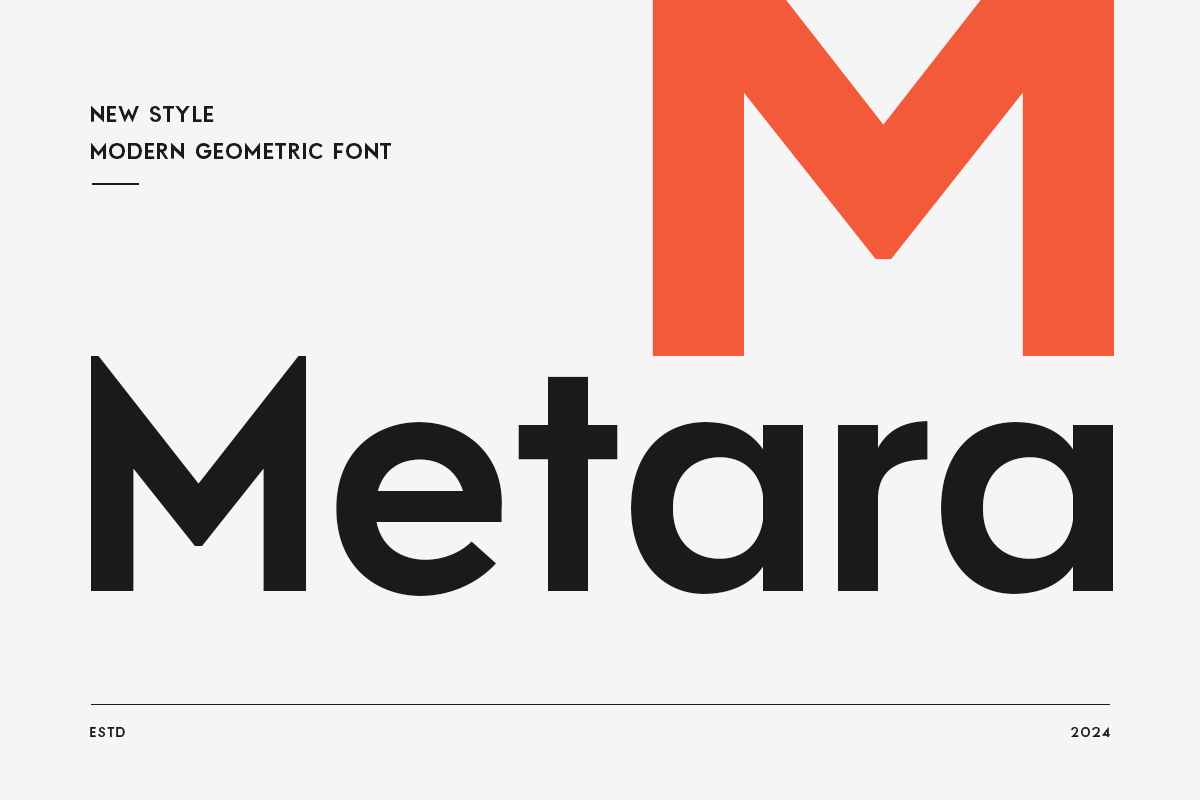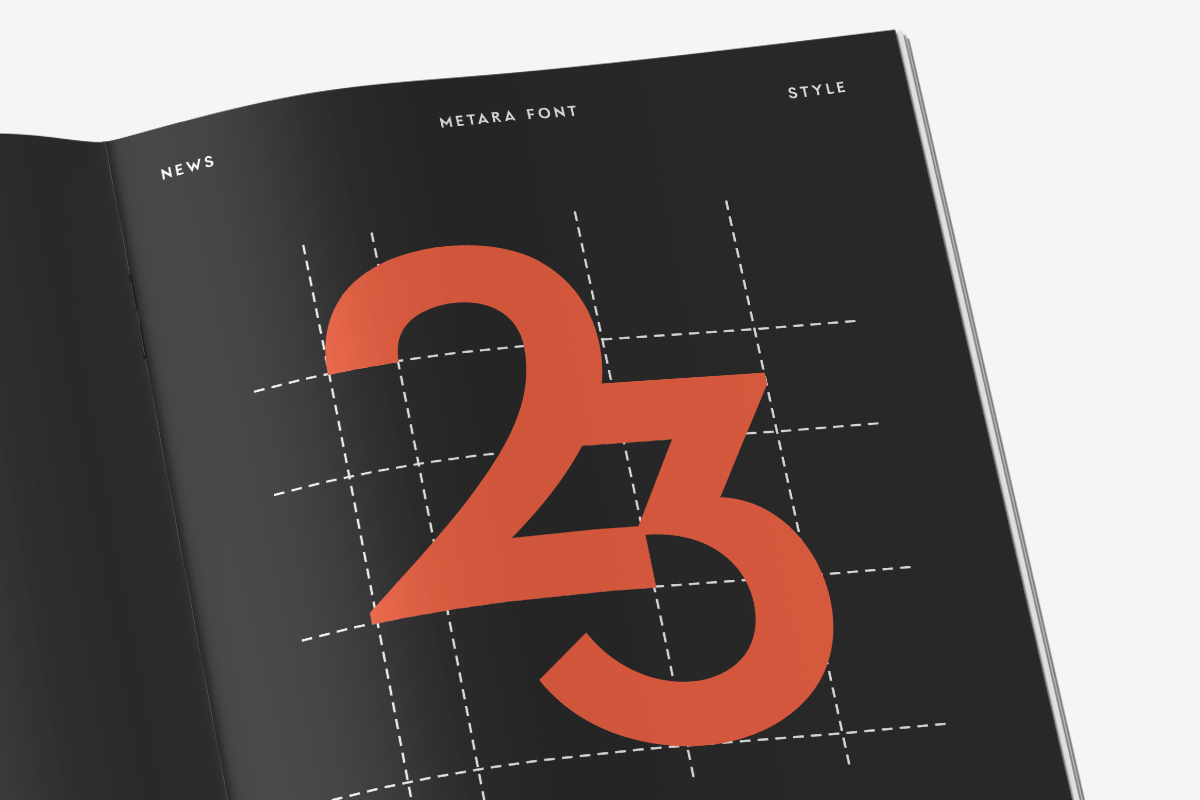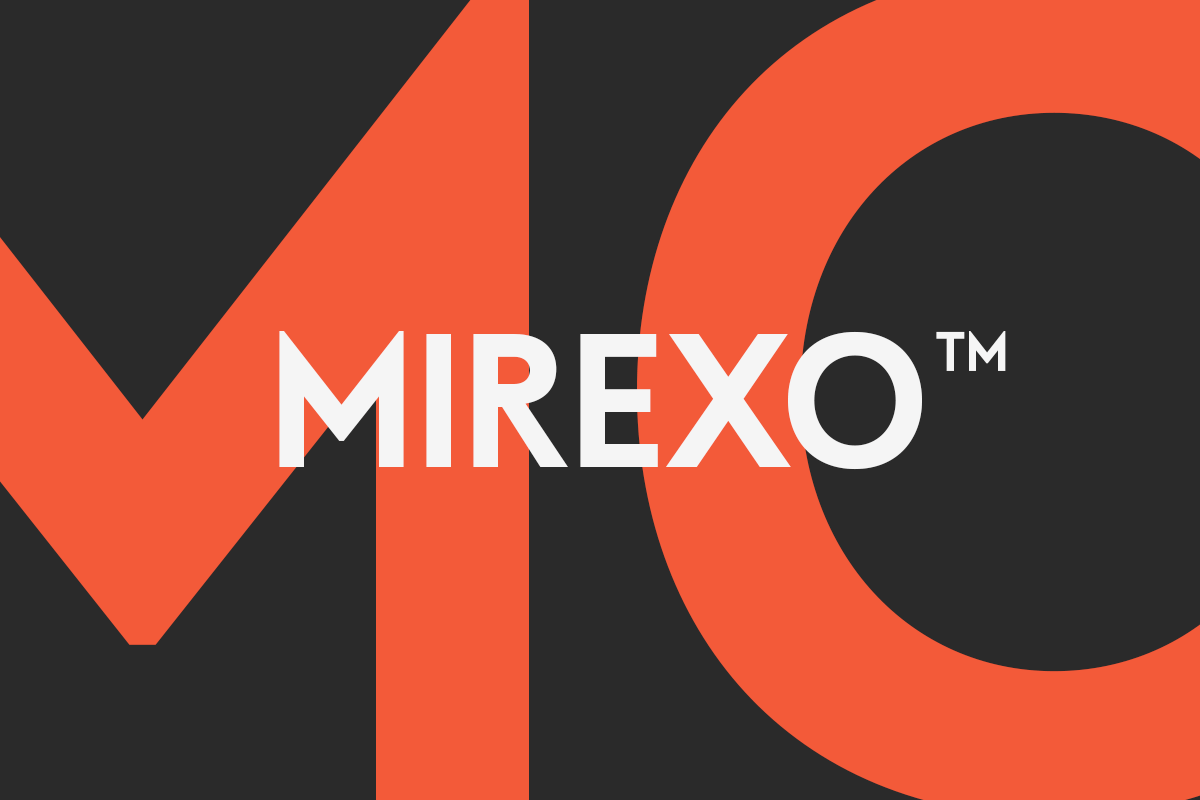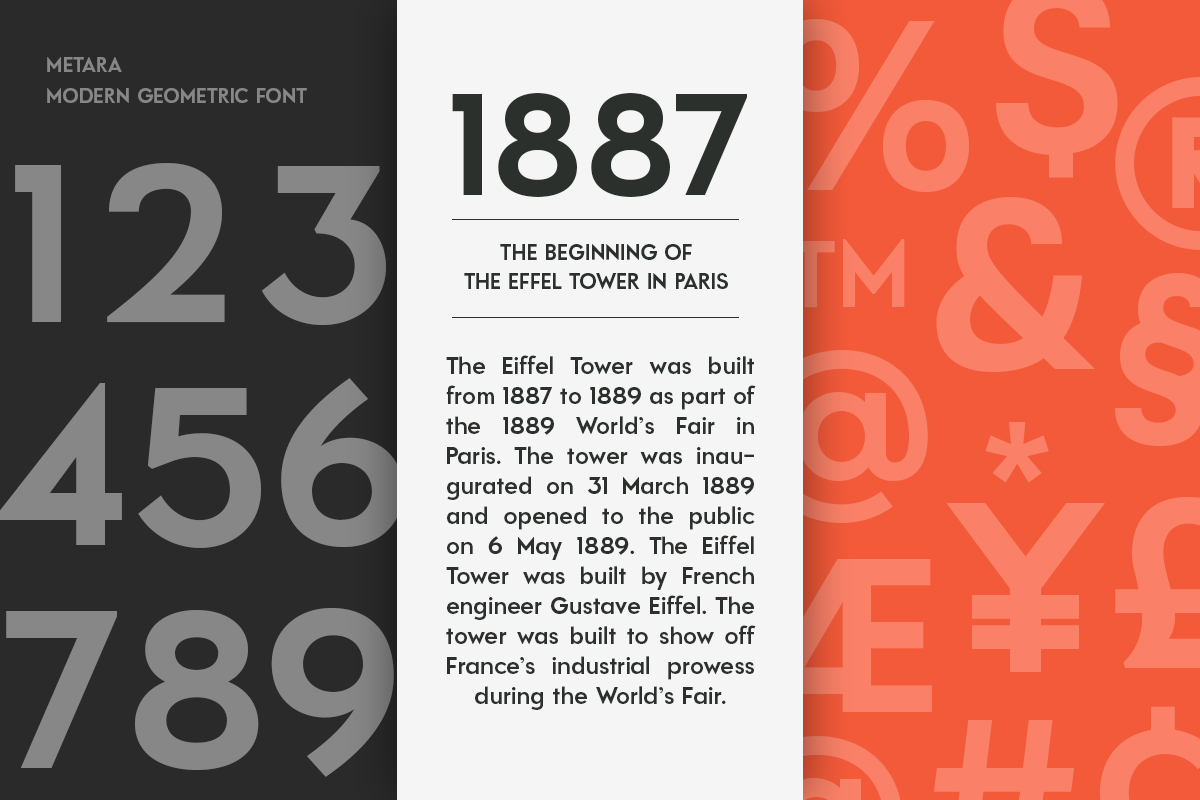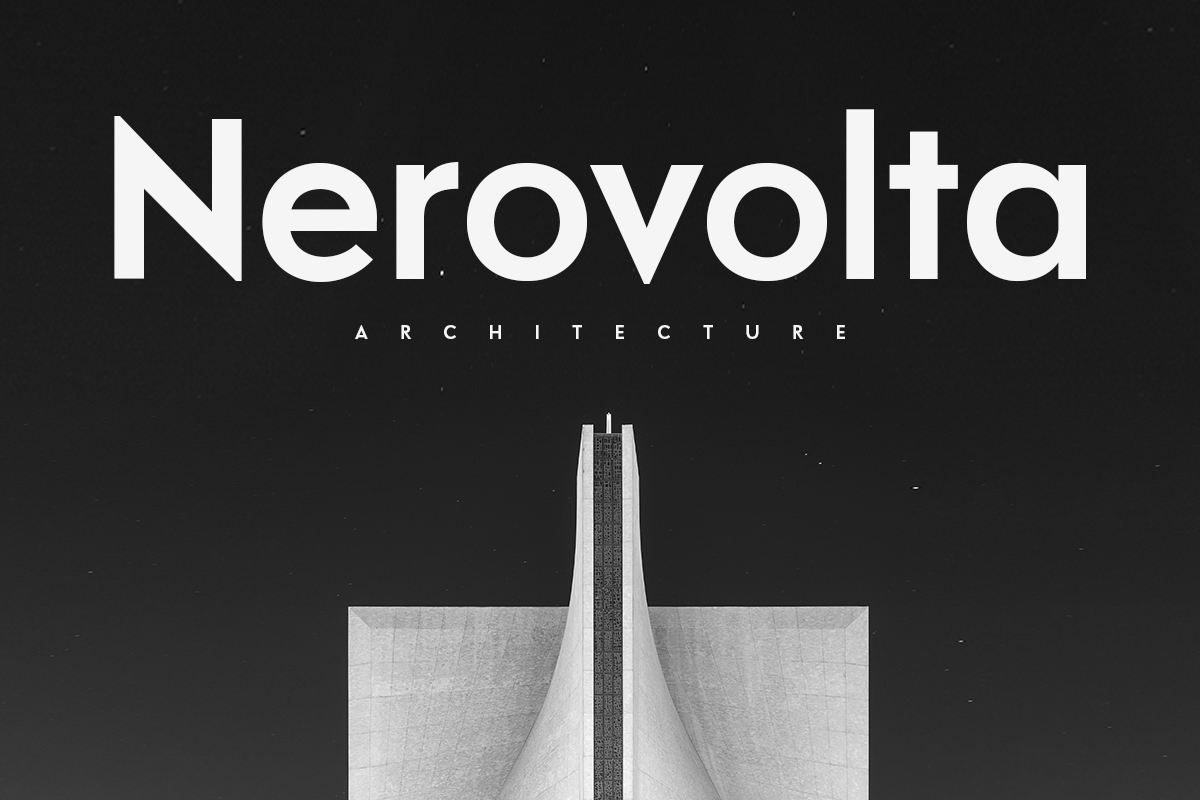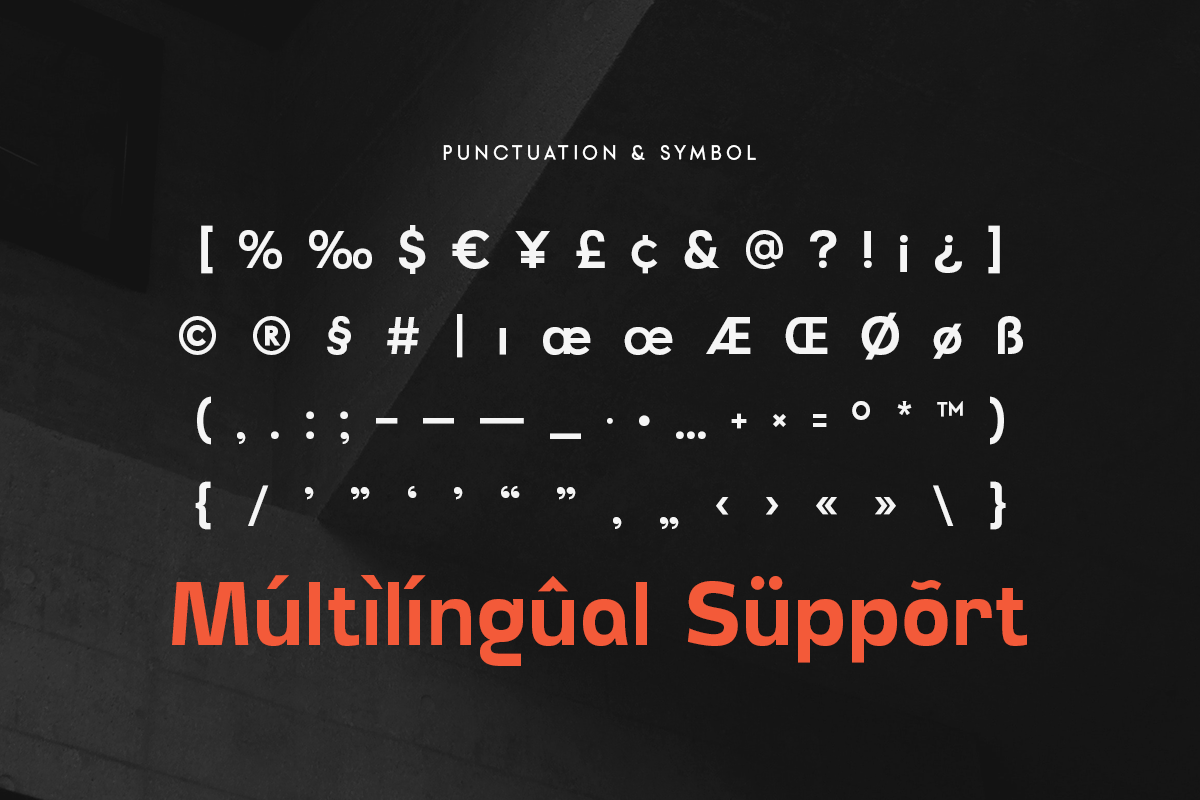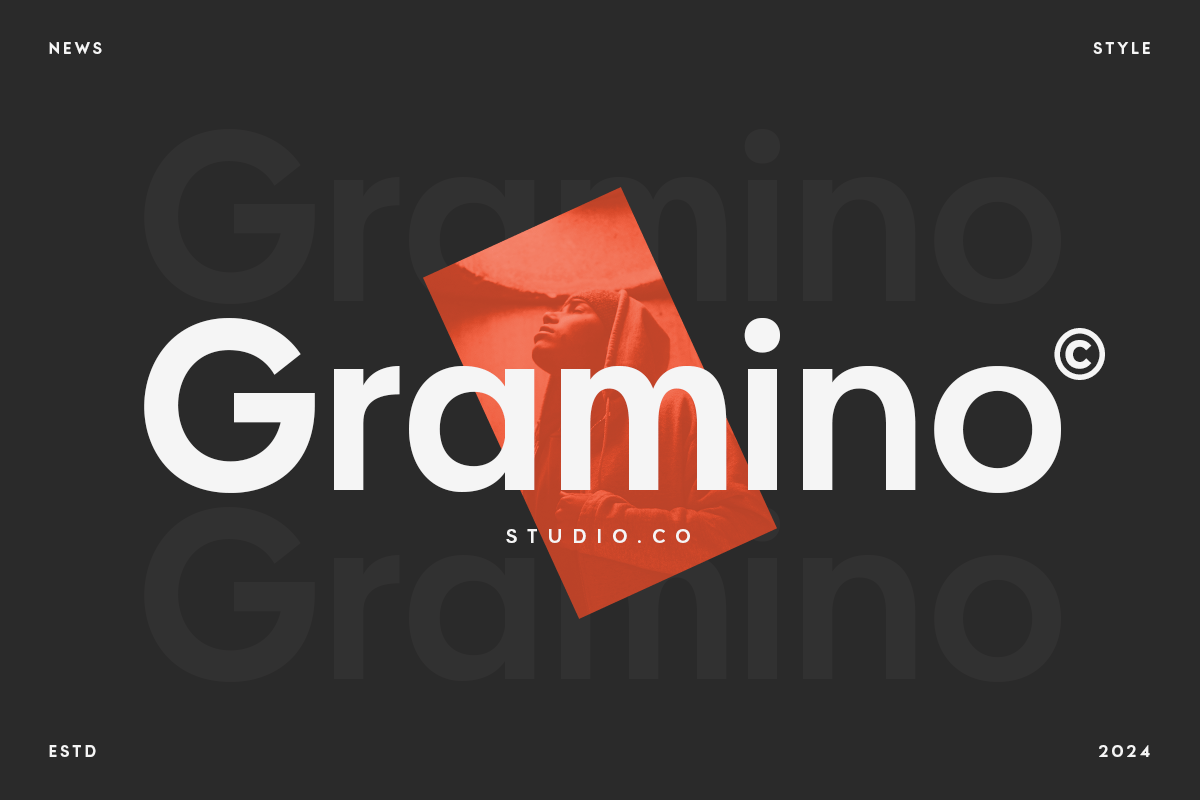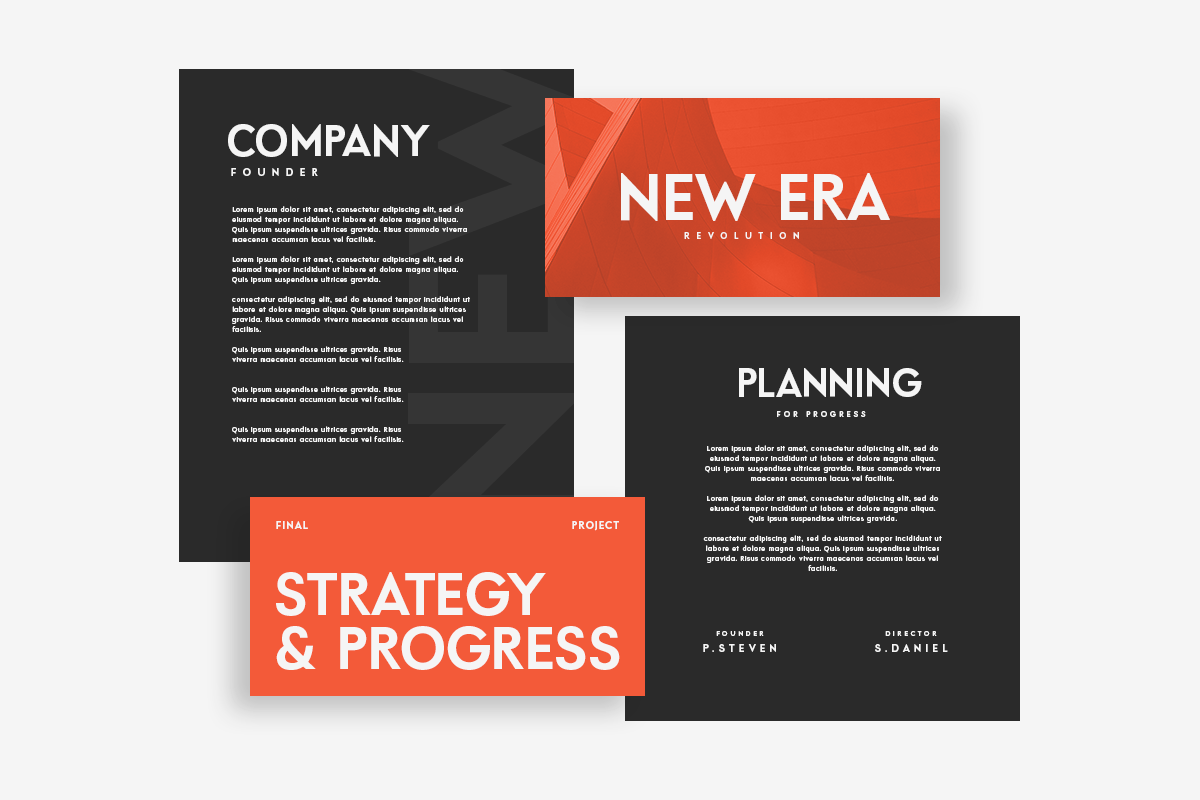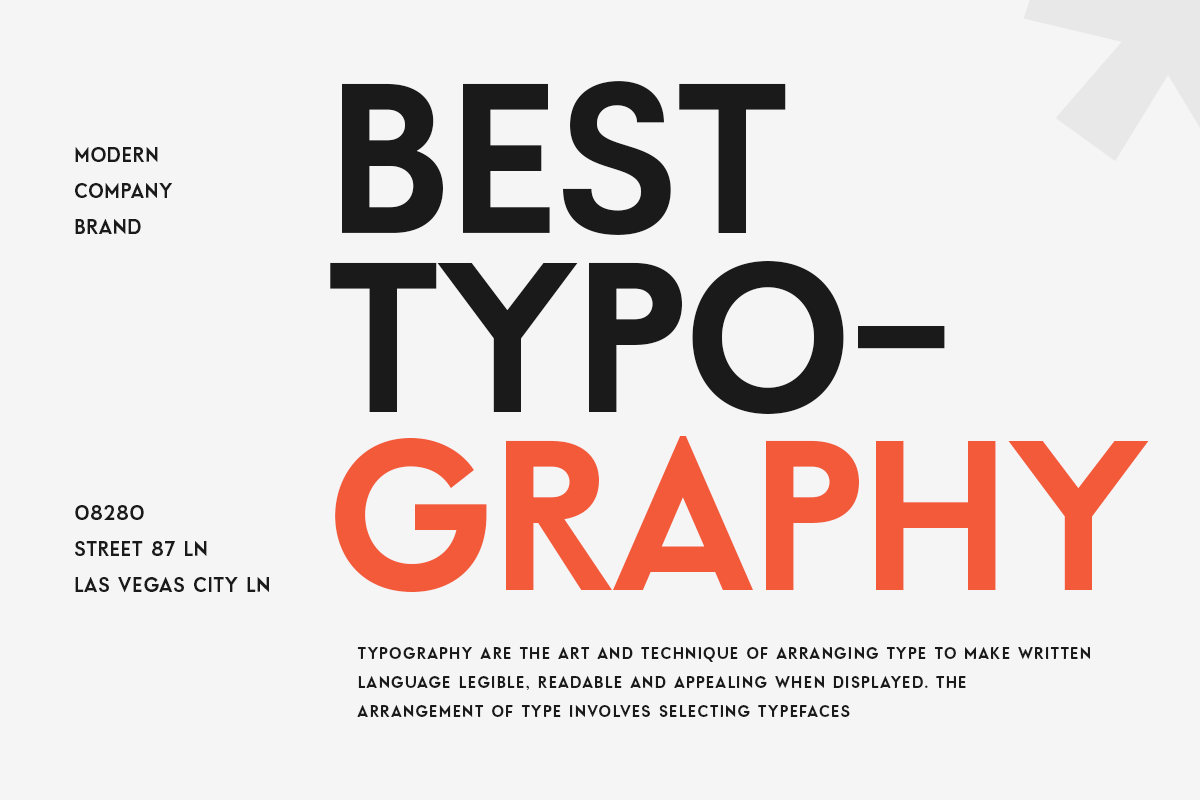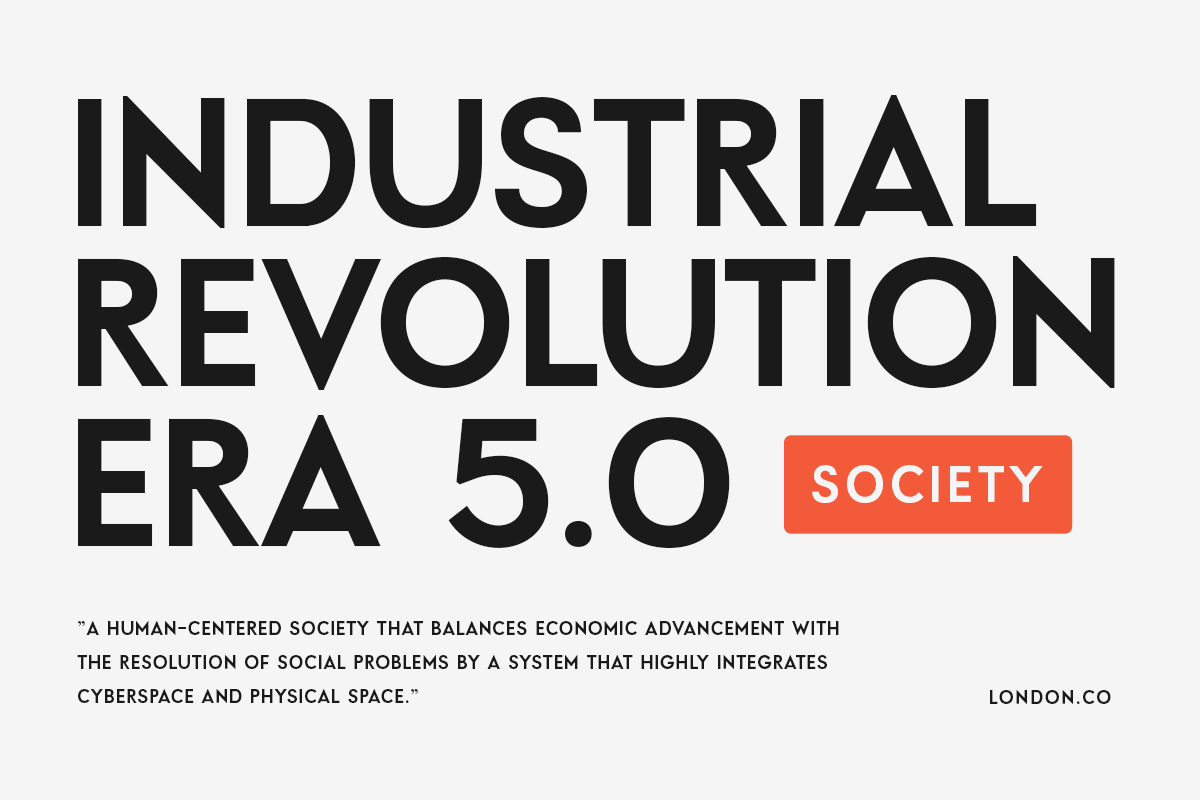
Metara – Modern Geometric Font
Metara is a Modern Geometric Font that’s well-balanced modern font with a minimalist, unique, and premium sans serif, font that you can combine to get any variations and unique shapes easily just in seconds with choose alternates of them. It is a sans serif font with minimalist style that perfect for branding projects, logo, poster designs, social media posts, advertisements, product packaging, product designs, label, photography, watermark, invitation, stationery, and any projects, it makes with a high level of legibility.
- Alternate Characters
- Character set A-Z
- Accented Characters (West Europe)